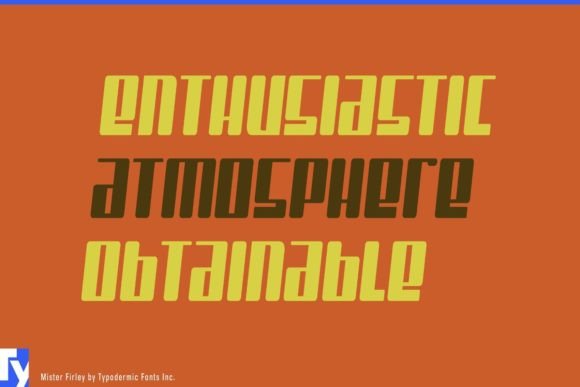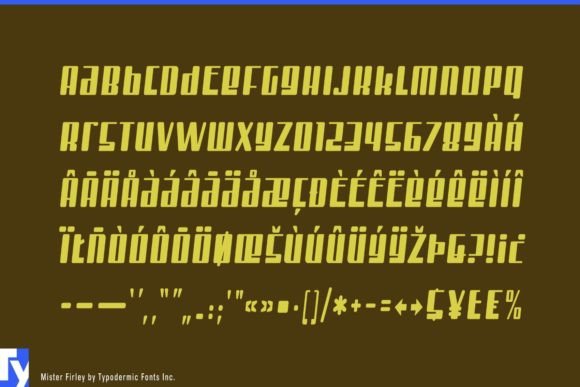
Introduction to Mister Firley Font
Have you ever stared at a blank canvas, eager to bring a creative idea to life, only to be met with a sea of bland fonts that fail to make an impact? That’s where the magic of Mister Firley Font comes in – a high-quality, industrialized-style headline yeller display font that will elevate your craft and set it apart from the competition.
Whether you’re a seasoned designer or a creative enthusiast looking to add some flair to your projects, Mister Firley Font is the perfect design resource to take your work to the next level. With its bold, eye-catching letters, this font is sure to make your projects come alive and grab the attention of your audience.
Key Features of Mister Firley Font
- High-quality design font ideal for creative projects, with a transparent background for seamless integration into any design.
- Designed with a unique, elegant style, perfect for adding a touch of sophistication to any design project.
- Features a large character set, including uppercase and lowercase letters, numbers, and punctuation marks.
- Supports a wide range of languages, making it a versatile design font for global projects.
Honest Review: Mister Firley Font
One of the standout features of the Mister Firley Font is its versatility. It’s perfect for use on transparent backgrounds, making it ideal for digital design projects. I’ve used it for creating custom graphics and it’s always a hit with my clients.
Here are some of the things that work well with the Mister Firley Font:
- ✨ High-quality design that looks professional and polished
- ✨ Versatile and suitable for various design projects
- ⚠️ Limited font sizes and styles available
Overall, I’m really impressed with the Mister Firley Font. It’s a valuable design resource that I’ll continue to use for my creative projects. If you’re looking for a high-quality font with a transparent background, I highly recommend giving it a try.
Common Use Cases for Mister Firley Font
Mister Firley Font is ideal for creative projects that require a high-quality, elegant font. Use it for business cards, invitations, and other print materials that demand a professional look.